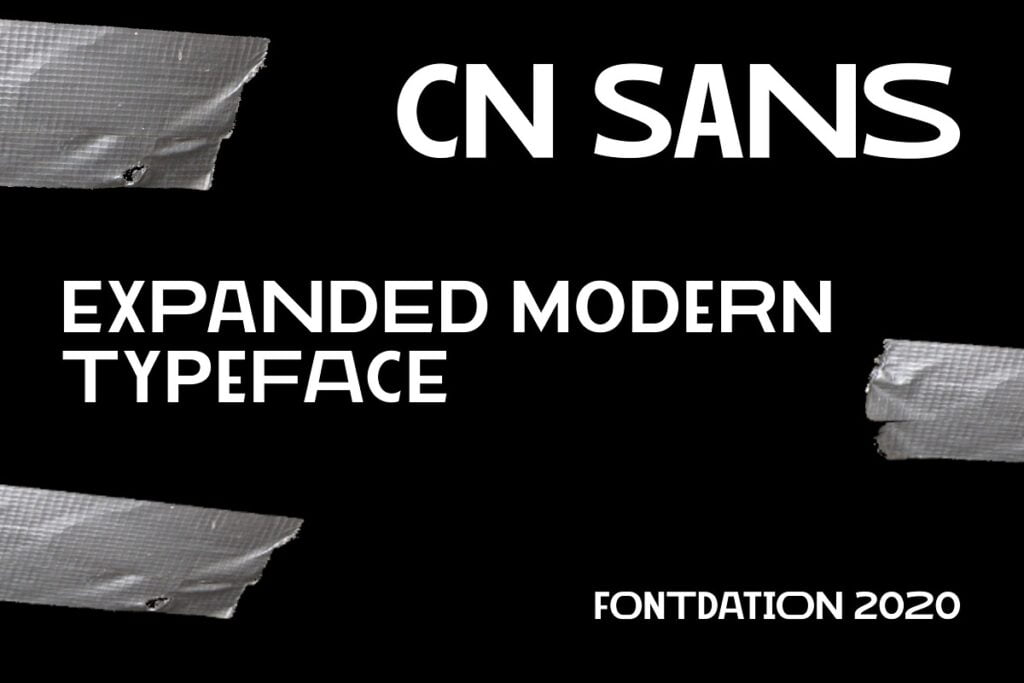
CN Sans Font
CN Sans is an expanded modern sans serif font with an experimental feel. This unique sans serif will deliver any text with style and confidence.